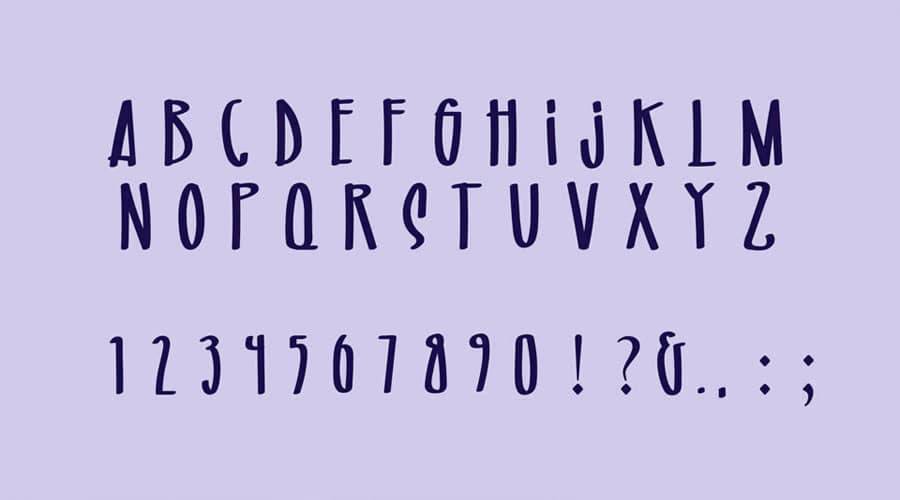
Rio and Ma Font
Rio and Ma Font is a delightful Script and Handwritten text style. The textual style is planned and distributed by lemoncraft on November 15, 2018.
Rio and Ma Font is ideal for a different endeavour like logos and checking, welcoming, composting material, wedding plans, online media posts, sees, thing packaging, thing plans, name, photography, watermark, exceptional events or anything. The Font looks really beautiful in all Type of creative projects.